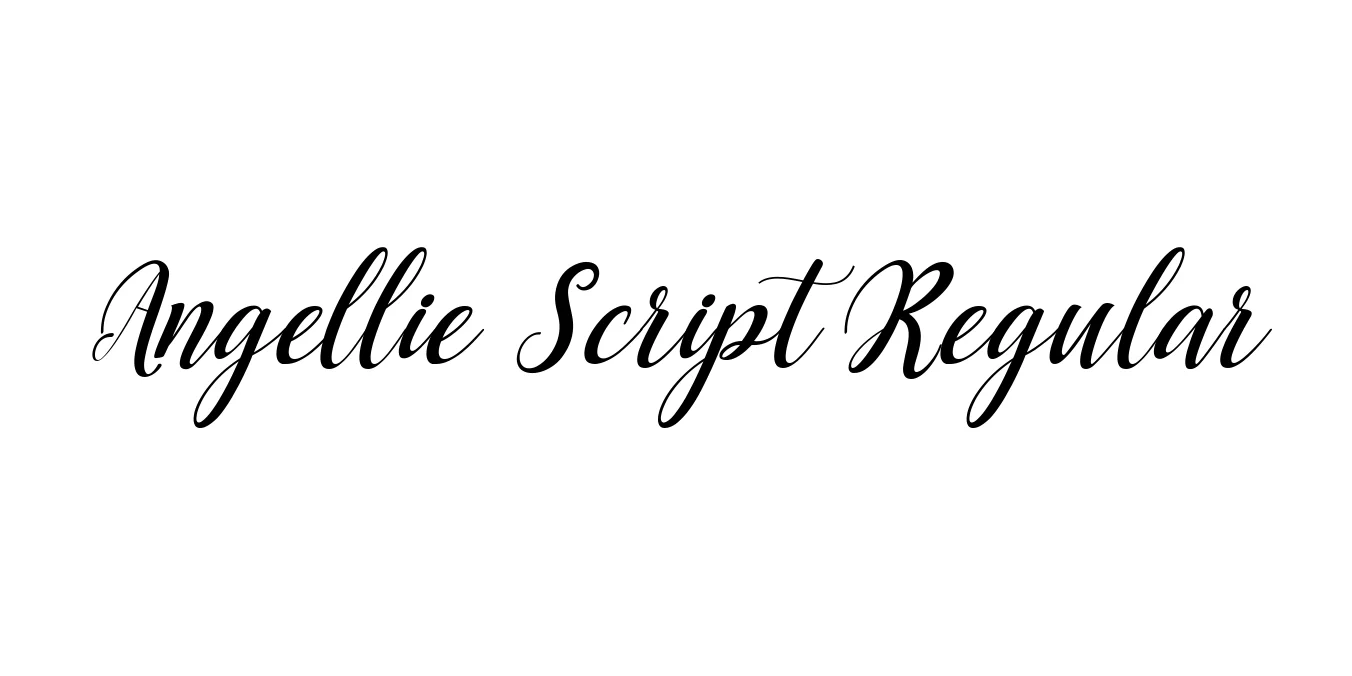
Angellie Script Regular
Designed by Creatype Studio
Angellie Script Regular is a sophisticated and elegant handwritten font developed by the talented team at Creatype Studio. Known for its fluid strokes and modern calligraphic style, this typeface captures a sense of personal touch and high-end aesthetic. It was specifically designed to bridge the gap between formal cursive and contemporary script, making it a versatile choice for designers looking to add a touch of luxury to their digital and print projects.
The font features a comprehensive set of opentype features, including ligatures and stylistic alternates that enhance its natural hand-drawn appearance. Since its release, Angellie Script has become a popular choice for romantic branding and wedding stationery, praised for its readability despite its decorative nature. Its balanced weight and graceful curves ensure that it remains legible across various media, from small business cards to large-scale event signage.
Angellie Script Regular Best Uses
Perfect for romantic invitations, RSVP cards, and envelopes.
Ideal for creating a unique, high-end personal logo identity.
Excellent for elegant watermarks on professional portrait photography.
Great for creating aesthetic and engaging quote graphics for Instagram.